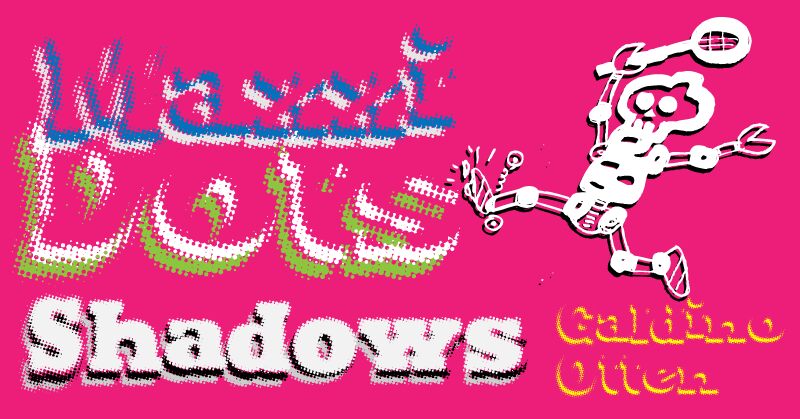
Maxxi Dots Shadows Bold by Galdino Otten is a free distorted 3D display font with loose, stretched outlines and dense halftone shadows that gather beneath the strokes and break into ragged specks around their outer edges. Its warped forms look deliberately unstable.
It can turn a poster headline into part of the artwork for underground music events, where the wavering contours and scattered dots echo rough photocopied graphics and dense, overprinted textures. That same off-kilter construction gives album covers, skate merchandise, and club flyers a lively printed texture, with the shadow pattern acting almost like a second layer of illustration.
Maxxi Dots Shadows Bold by Galdino Otten is a free distorted 3D display font.